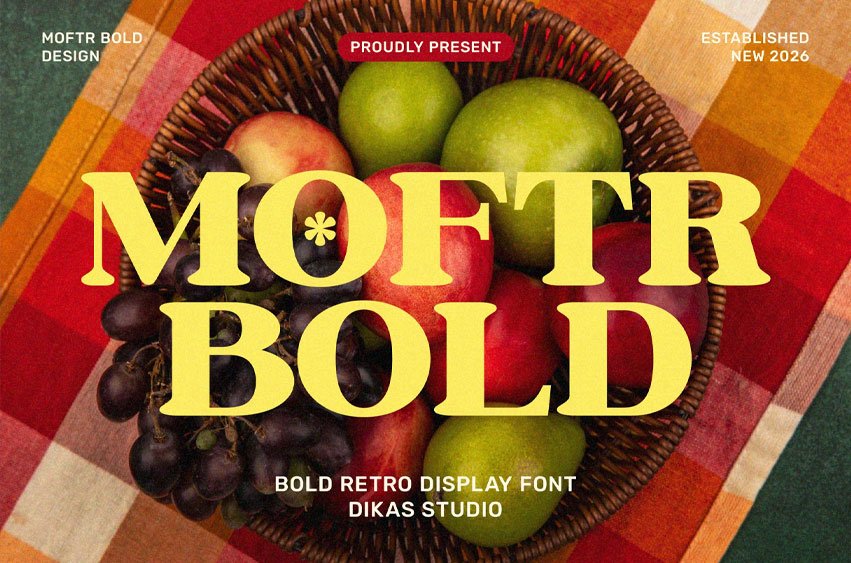
Moftr Font is a bold vintage serif font that brings retro energy and playful character into your designs. With its strong black weight and confident letterforms, Moftr captures the spirit of classic typography while keeping a fun and expressive personality.
Inspired by retro and vintage aesthetics, this serif typeface is perfect for posters, logos, branding, packaging, and display designs that need to stand out. Its bold presence and nostalgic vibe make every word feel powerful, eye-catching, and full of character.